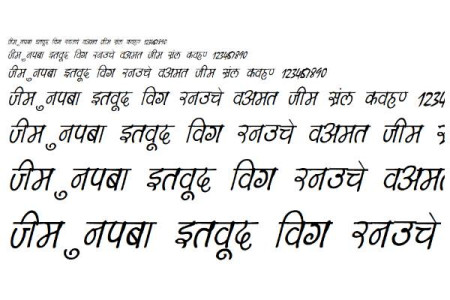
The Krishna Wide Font is a devotional and cultural typeface with extended letterforms that give a bold, spacious, and impactful appearance. Inspired by Indian tradition, this font is perfect for festival posters, temple banners, invitations, devotional books, cultural branding, packaging, and social media graphics.
Its wide strokes and traditional aesthetic make text more visible and powerful, ensuring your spiritual or cultural designs stand out in both print and digital projects.
Style: Wide / Extended / Devotional / Traditional Typeface
Perfect for: Festival Posters, Religious Invitations, Temple Banners, Cultural Branding & Book Covers
| Optimum Size | Large (Display / Poster) |